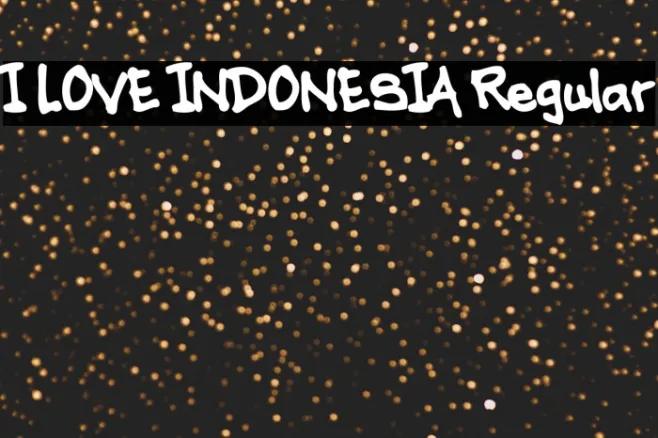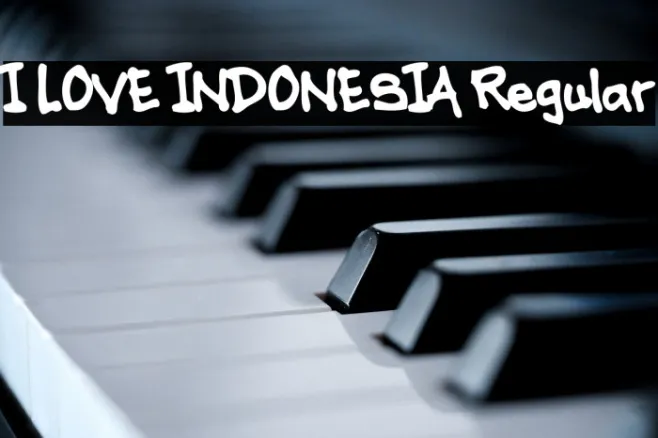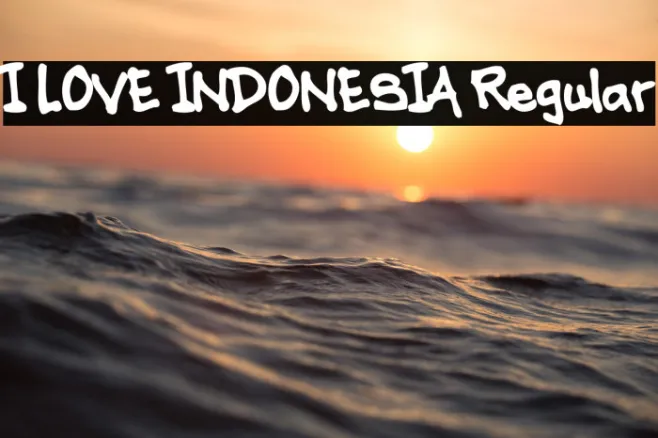
I LOVE INDONESIA Regular Font
I LOVE INDONESIA Regular Description
This font features a bold and playful handwritten style, characterized by its thick strokes and slightly irregular shapes. The letters have a casual and friendly appearance, with a dynamic flow that suggests movement and energy. The uppercase and lowercase letters maintain a consistent weight, providing a harmonious look across the alphabet. The numbers and special characters are designed to match the overall style, ensuring a cohesive appearance. This font is ideal for projects that require a personal touch, such as greeting cards, posters, or branding materials that aim to convey warmth and approachability.
Overall StylePlayful, Casual
Proposed ProjectsGreeting cards, posters, branding materials, children's books, and playful designs.